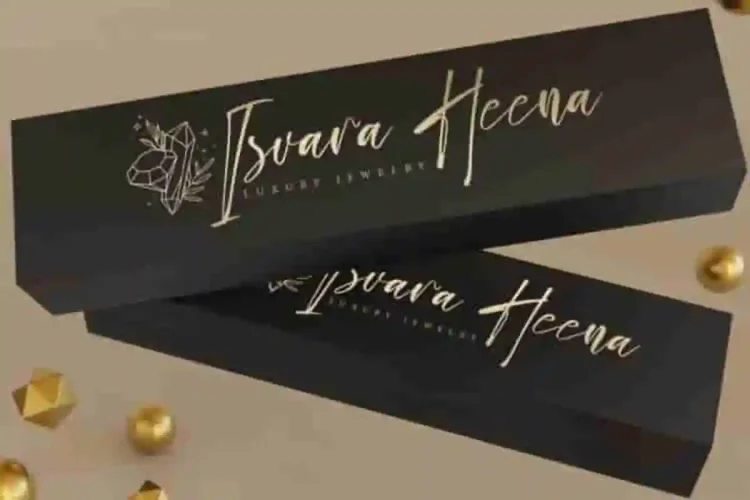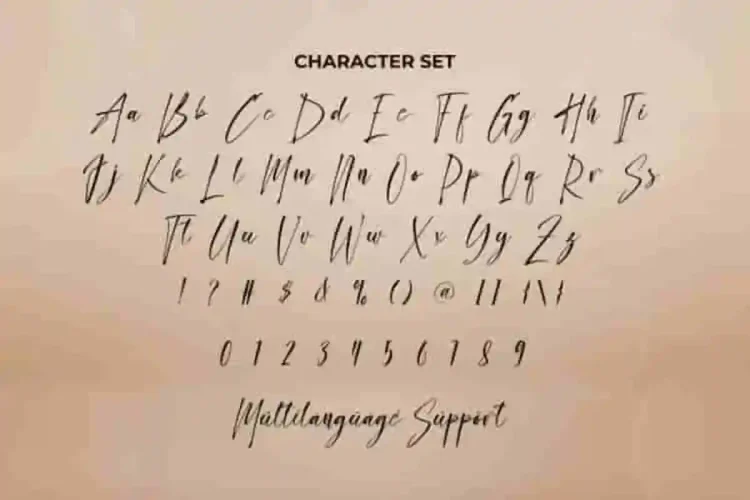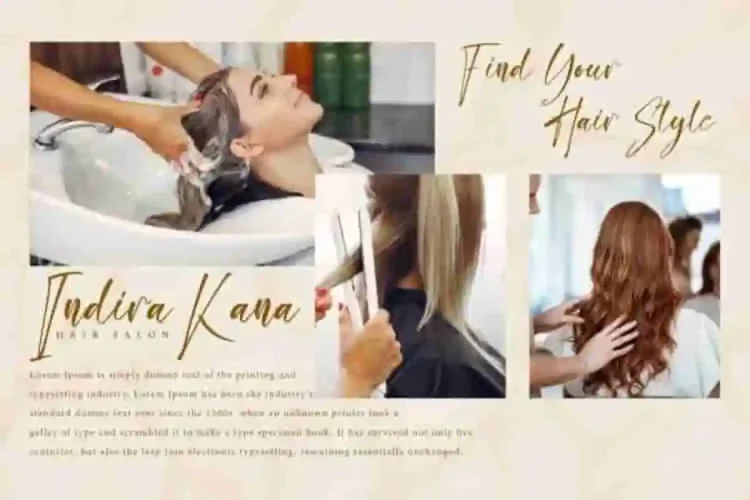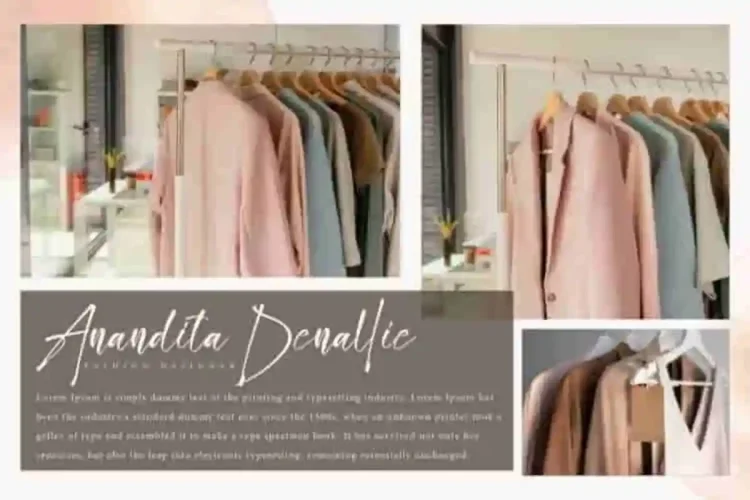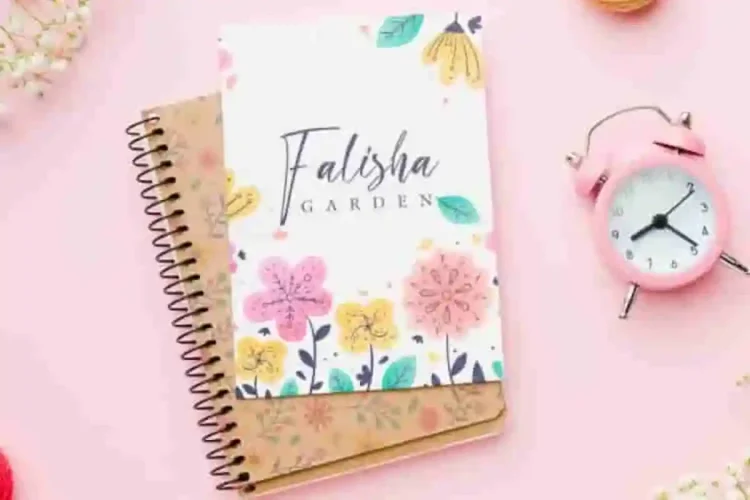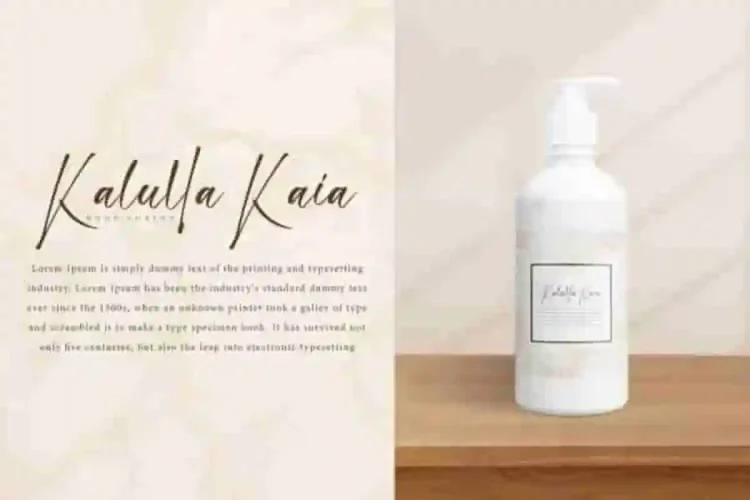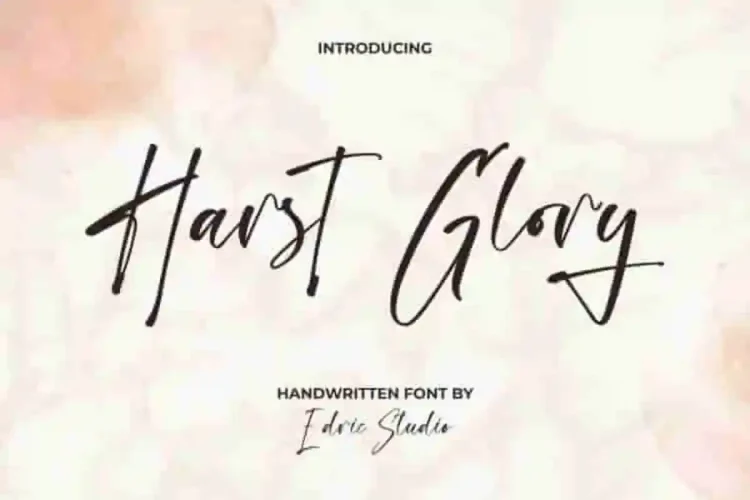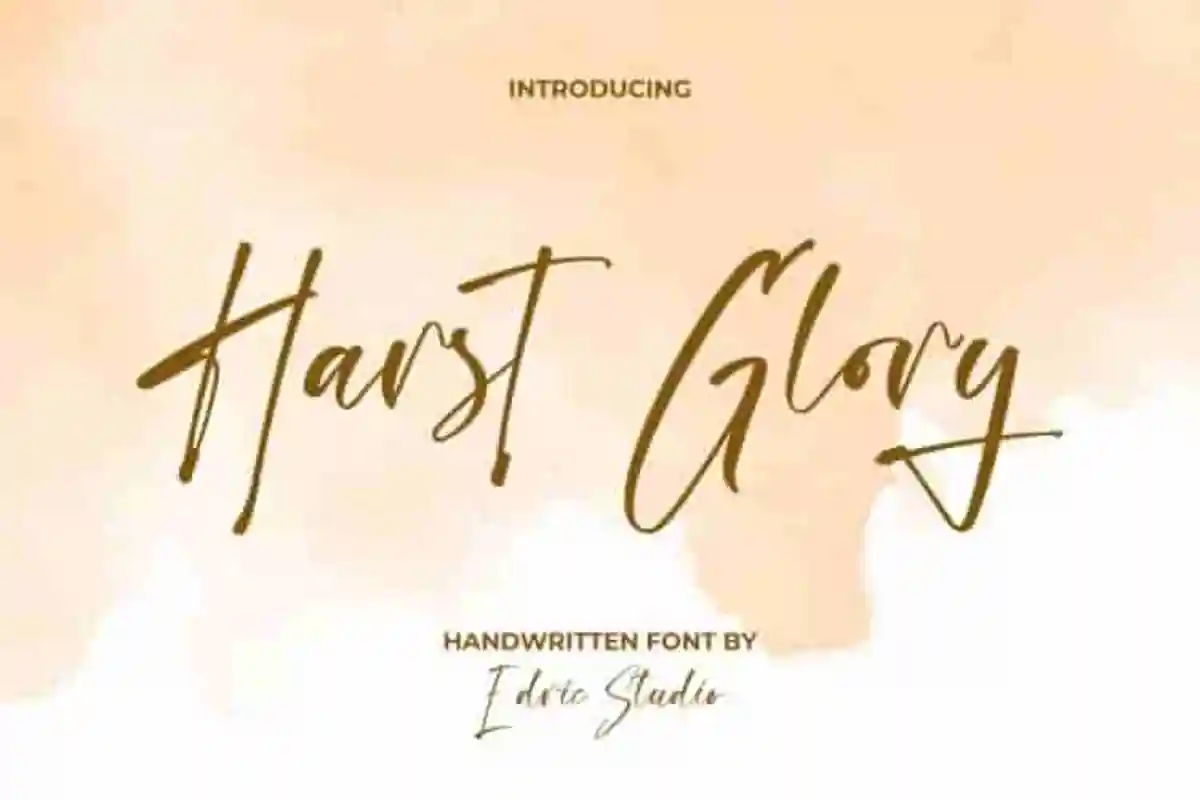
Harst Glory Handwritting Font an artistic handwritten script crafted by Edric Studio. Inspired by natural pen ink strokes, this font combines thick and thin lines to deliver a refined, stylish, and authentic handwritten feel. Perfect for brands, creatives, and professionals, Harst Glory brings elegance to every project.
Harst Glory Handwritting Signature Font ensures your design stands out with sophistication. Its smooth ligatures, alternates, and well-spaced kerning make it versatile for boutique branding. It has a stunning characters set, perfectly managed with well spaced and kerning.